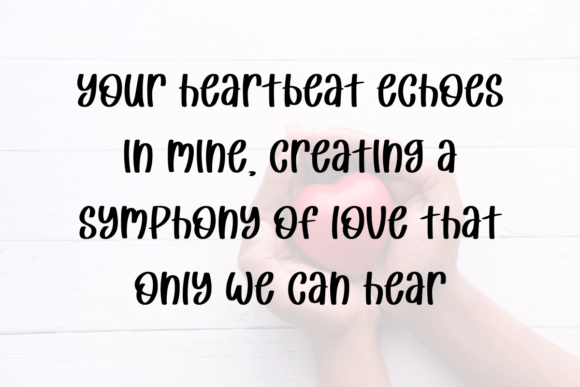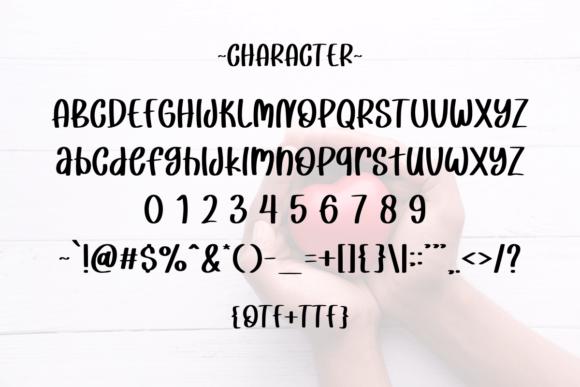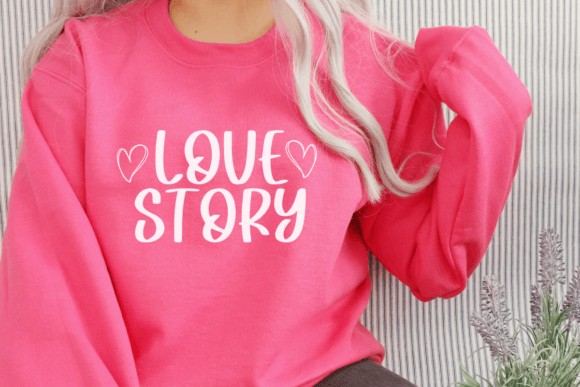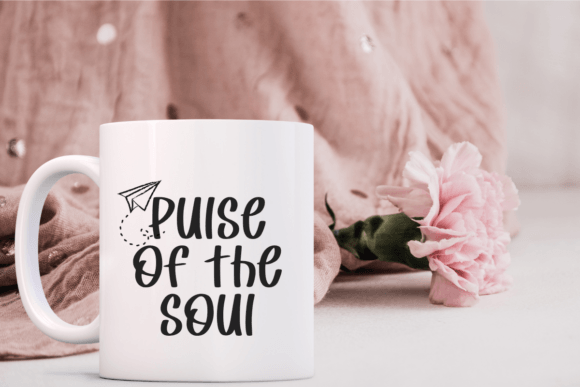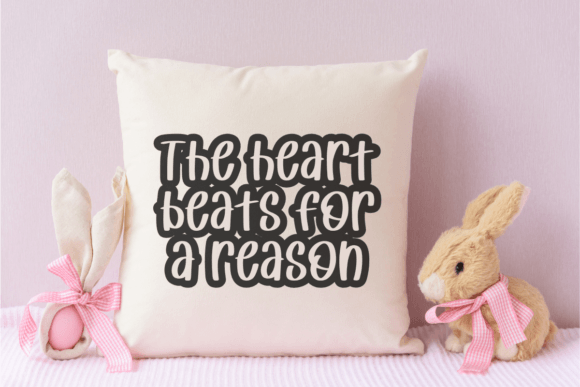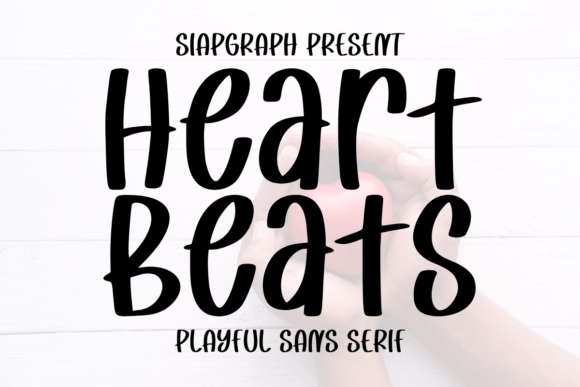
Introducing Heart Beats Font: The Perfect Addition to Your Valentine’s Day Designs
Are you looking for a font that captures the essence of Valentine’s Day? Look no further than Heart Beats Font, a fun and playful sans serif font that’s sure to make your designs stand out. With its cute and fun style, natural strokes, and touches, this font is perfect for creating a wide range of Valentine’s Day-themed projects.
What Makes Heart Beats Font So Special?
Heart Beats Font is a unique and charming font that’s specifically designed to add a touch of whimsy and romance to your designs. Its sans serif style gives it a clean and modern look, while its natural strokes and touches add a playful and hand-crafted feel. This font is perfect for designers and crafters who want to create projects that are both fun and sophisticated.
Perfect for Valentine’s Day Celebrations
As its name suggests, Heart Beats Font is perfect for Valentine’s Day celebrations. Its cute and playful style makes it ideal for creating Valentine’s greeting cards, necklaces, gifts, t-shirts, and other designs. Whether you’re a designer, crafter, or DIY enthusiast, this font is sure to inspire your creativity and help you create projects that are both fun and memorable.
Beyond Valentine’s Day: Other Uses for Heart Beats Font
While Heart Beats Font is perfect for Valentine’s Day designs, its versatility extends far beyond this one holiday. This font is also suitable for a wide range of other creative projects, including:
- Journals and notebooks
- KDP (Kindle Direct Publishing) projects
- Planners and organizers
- Teaching materials and worksheets
- Cricut and silhouette projects
- Sublimation designs
- Necklaces and keychains
- Women’s clothing and accessories
Why Designers and Crafters Love Heart Beats Font
So why do designers and crafters love Heart Beats Font? Here are just a few reasons:
- Easy to read: Despite its playful style, Heart Beats Font is easy to read and understand, making it perfect for designs that require a clear and concise message.
- Highly versatile: This font can be used for a wide range of projects, from digital designs to print materials.
- Unique and eye-catching: Heart Beats Font is a one-of-a-kind font that’s sure to grab attention and make your designs stand out.
- Fun and playful: This font is perfect for designers and crafters who want to add a touch of whimsy and fun to their projects.
Tips for Using Heart Beats Font
Here are a few tips for using Heart Beats Font in your designs:
- Pair it with other fonts: Heart Beats Font looks great when paired with other fonts, such as script fonts or bold sans serif fonts.
- Experiment with colors: This font looks great in a wide range of colors, from bright and bold to soft and pastel.
- Use it for headings and titles: Heart Beats Font is perfect for headings and titles, where its playful style can really shine.
- Don’t be afraid to get creative: Heart Beats Font is a versatile font that can be used in a wide range of creative projects, so don’t be afraid to think outside the box and try new things.
In conclusion, Heart Beats Font is a fun and playful sans serif font that’s perfect for Valentine’s Day designs and beyond. With its cute and fun style, natural strokes, and touches, this font is sure to inspire your creativity and help you create projects that are both fun and memorable. Whether you’re a designer, crafter, or DIY enthusiast, Heart Beats Font is a great addition to your font collection.